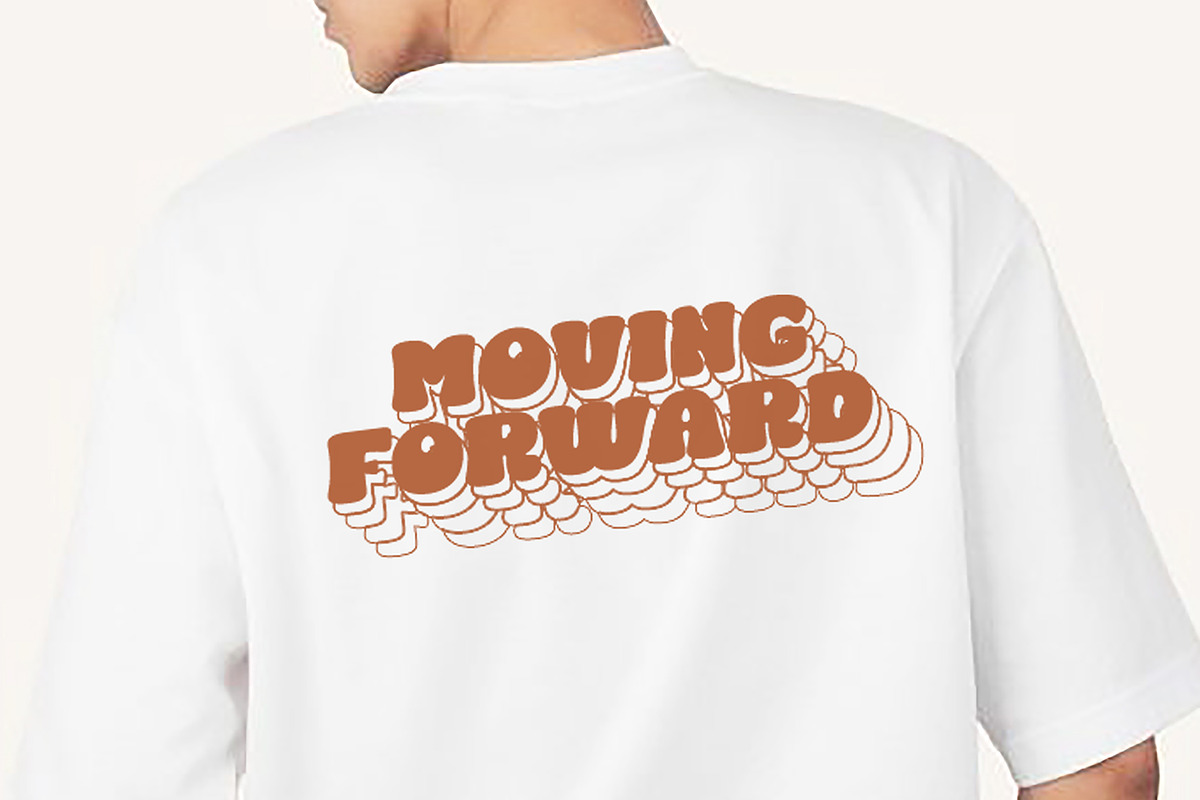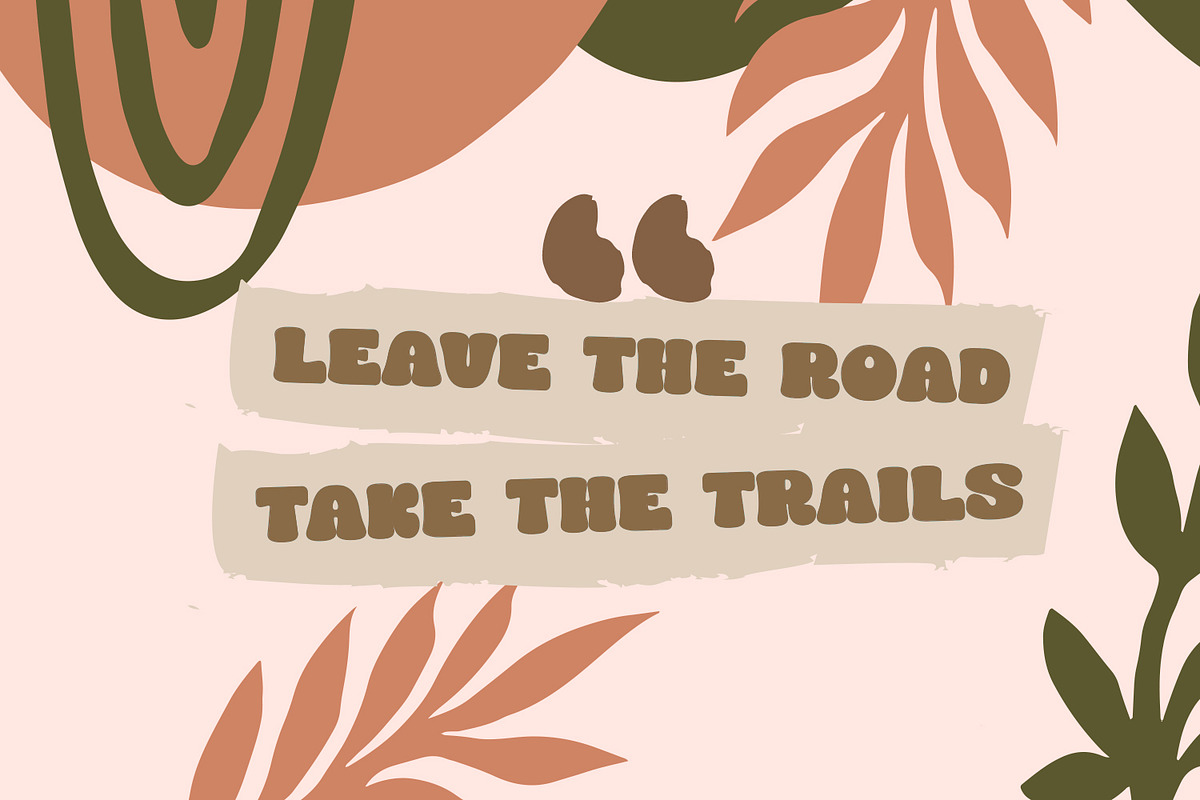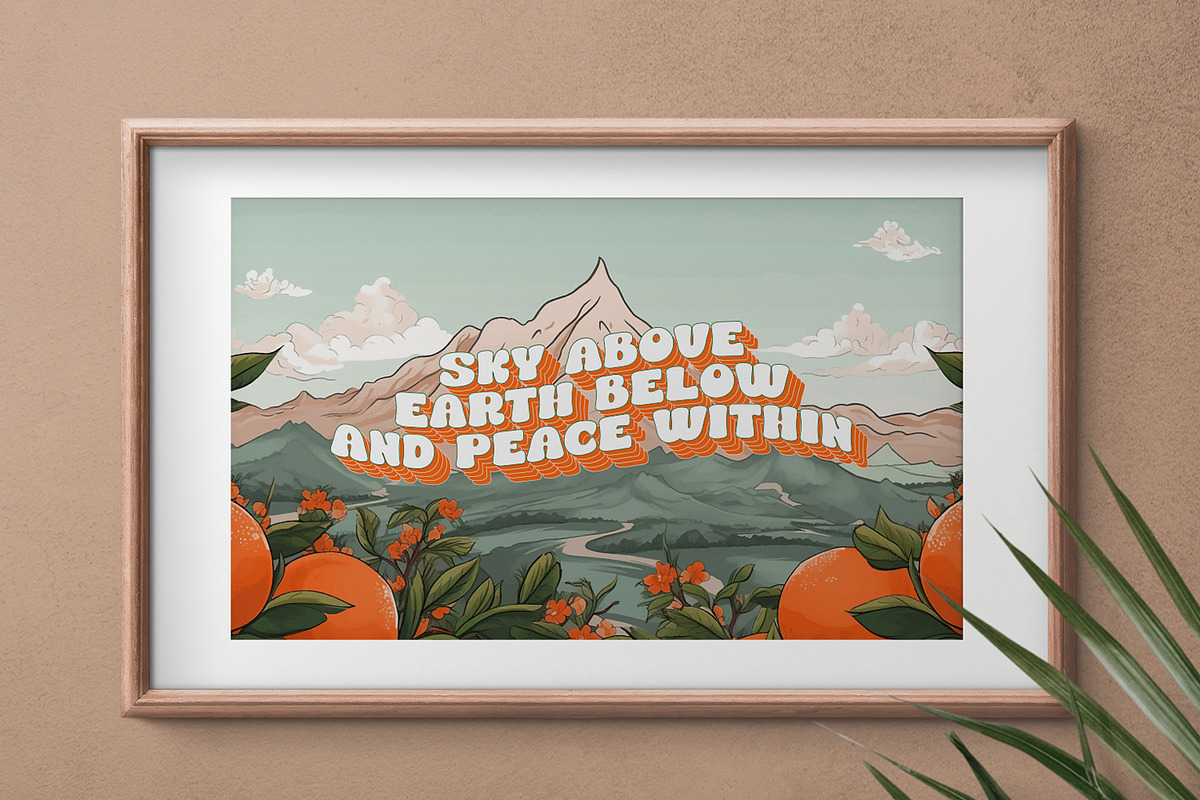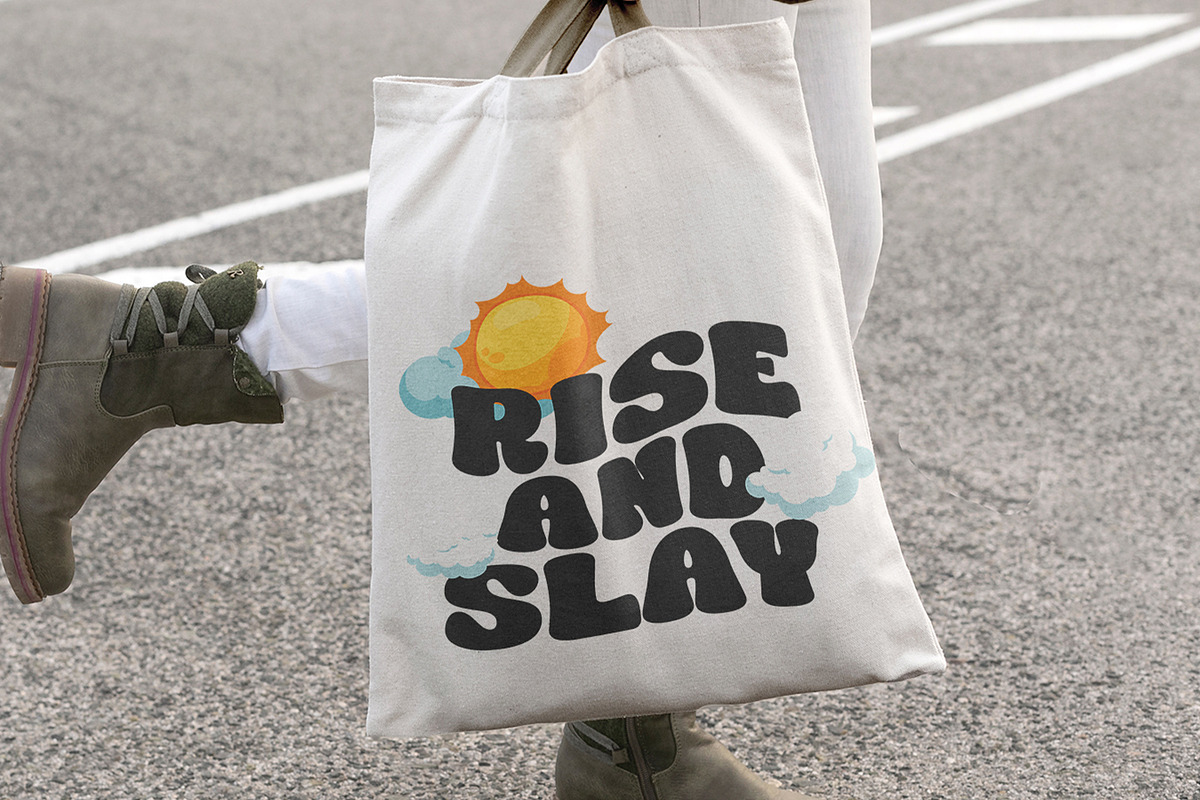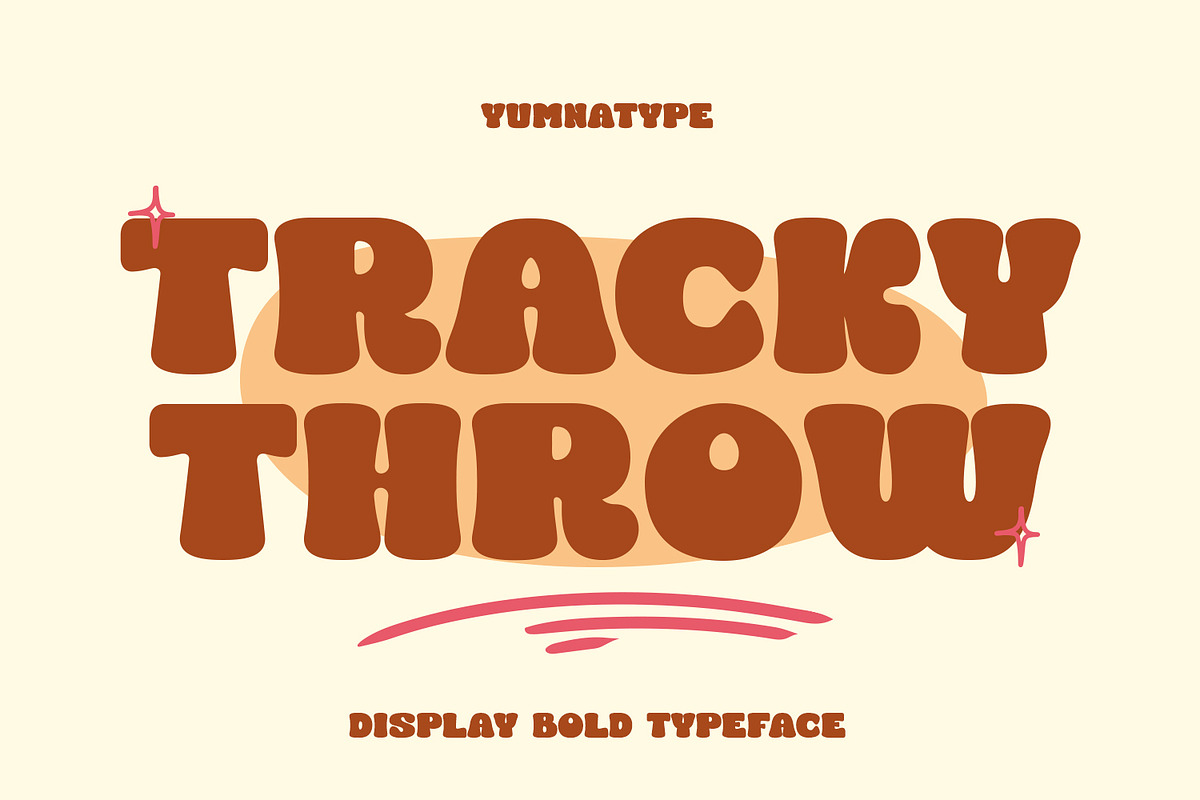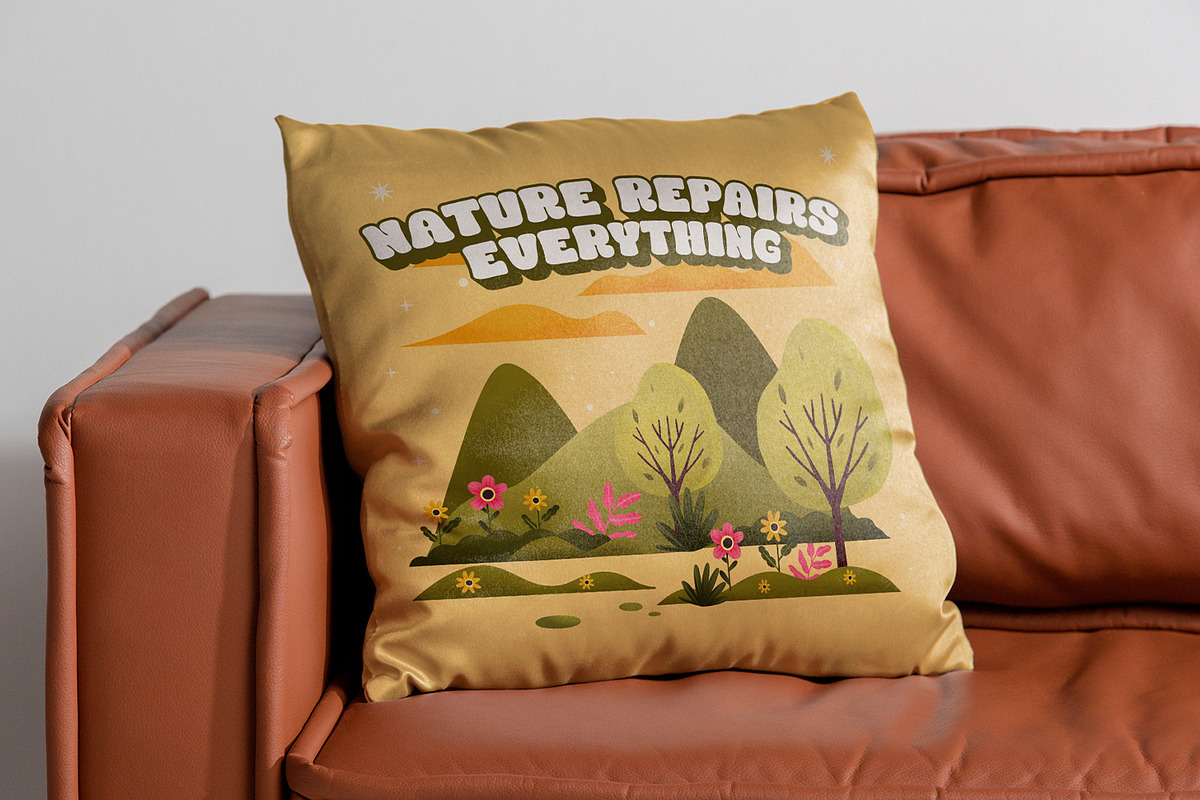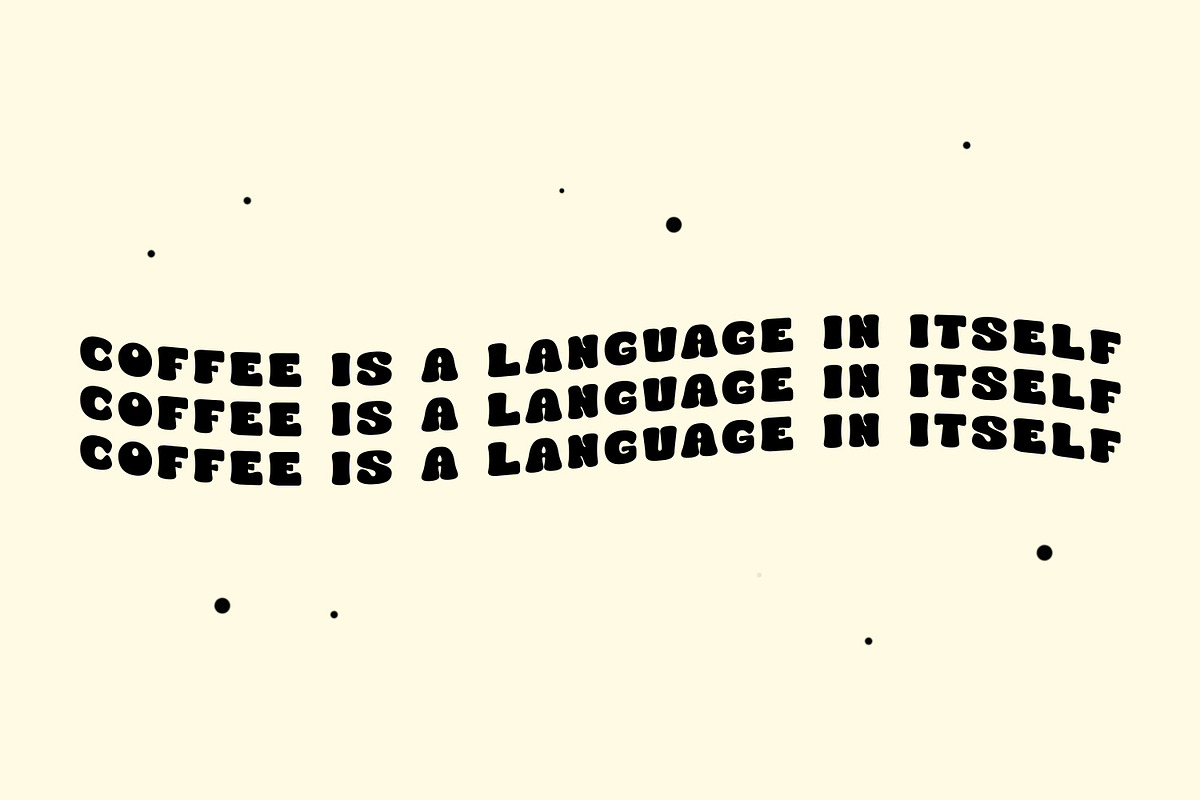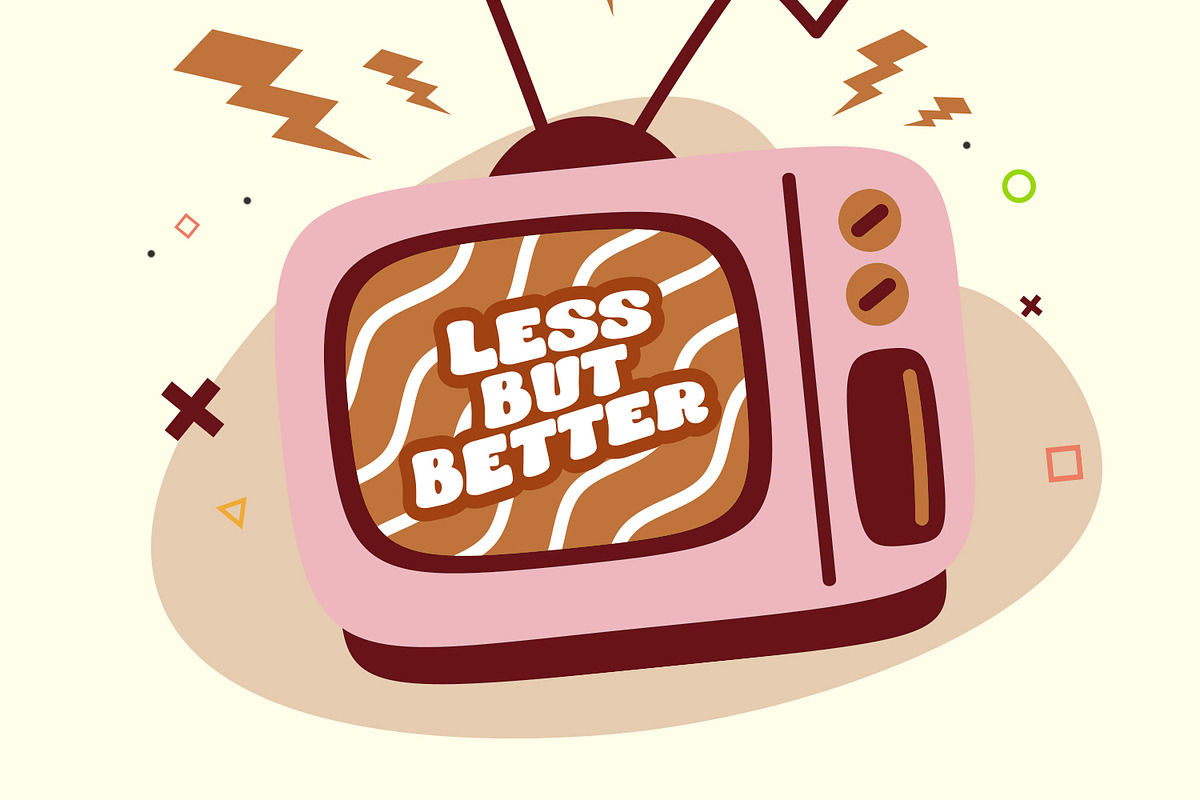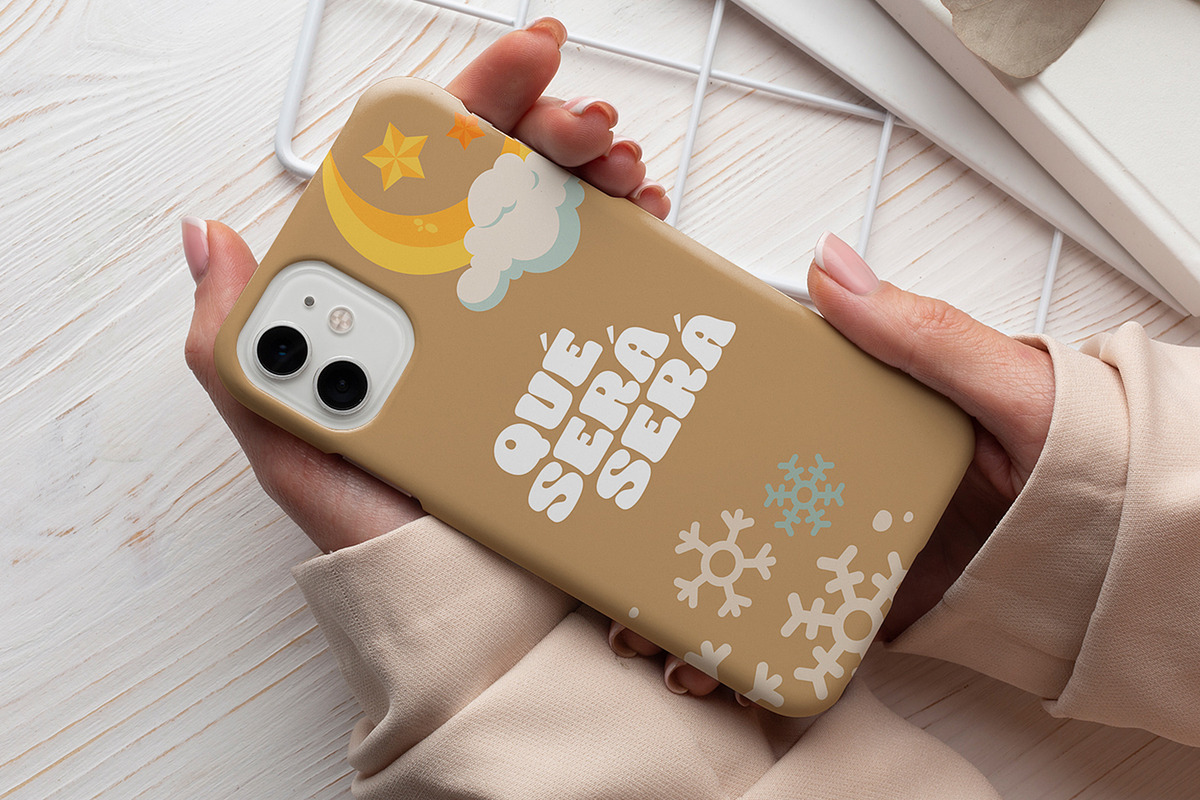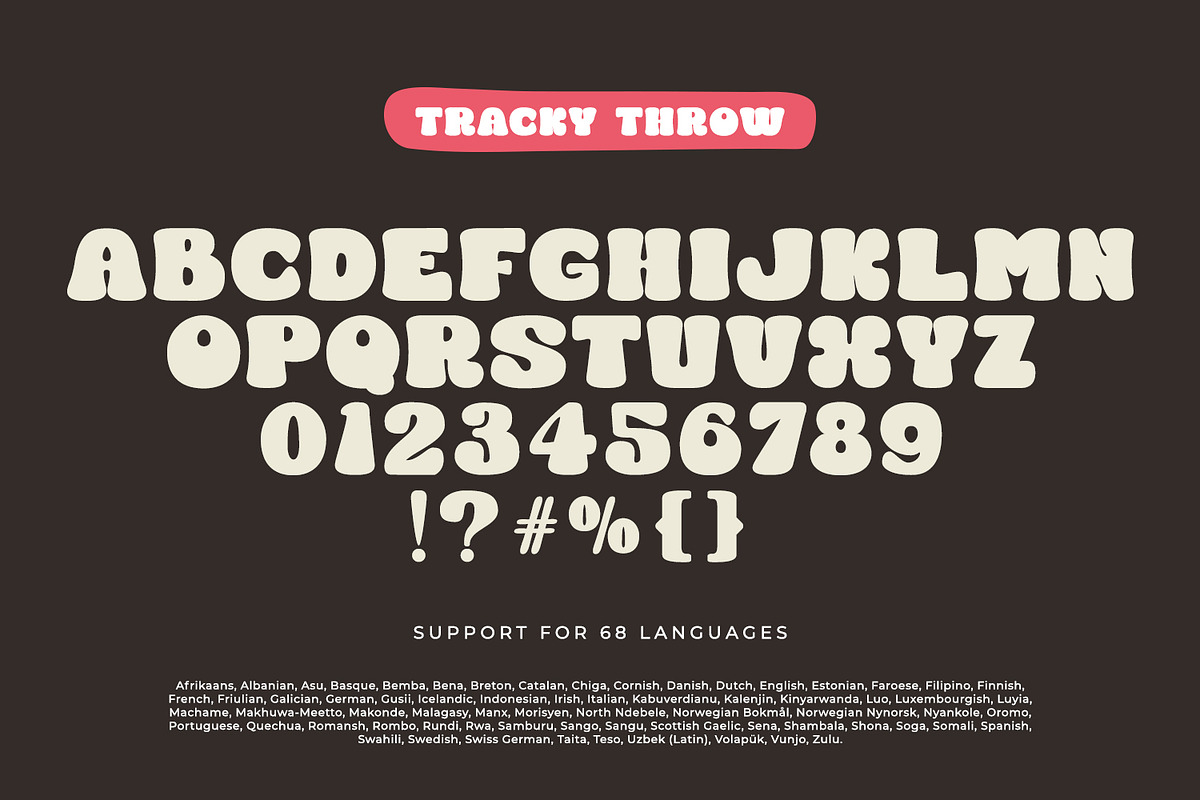
Tracky Throw
Tracky Throw is a striking display font that commands attention with its bold weight and playful design. Characterized by its bold weight, Tracky Throw exudes confidence and assertiveness. The low contrast between the thick and thin strokes ensures a uniform and cohesive look.
The rounded shapes of Tracky Throw add a touch of softness and approachability to its overall design. This combination of boldness and roundness creates a unique balance, making the font both strong and friendly. The smooth curves and rounded edges give the letters a playful, almost whimsical feel, making it suitable for a variety of creative applications. In addition, enjoy the features here.
Tracky Throw fits in headlines, logos, posters, flyers, branding materials, print media, editorial layouts, and many more designs. Find out more ways to use this font by taking a look at the font preview.